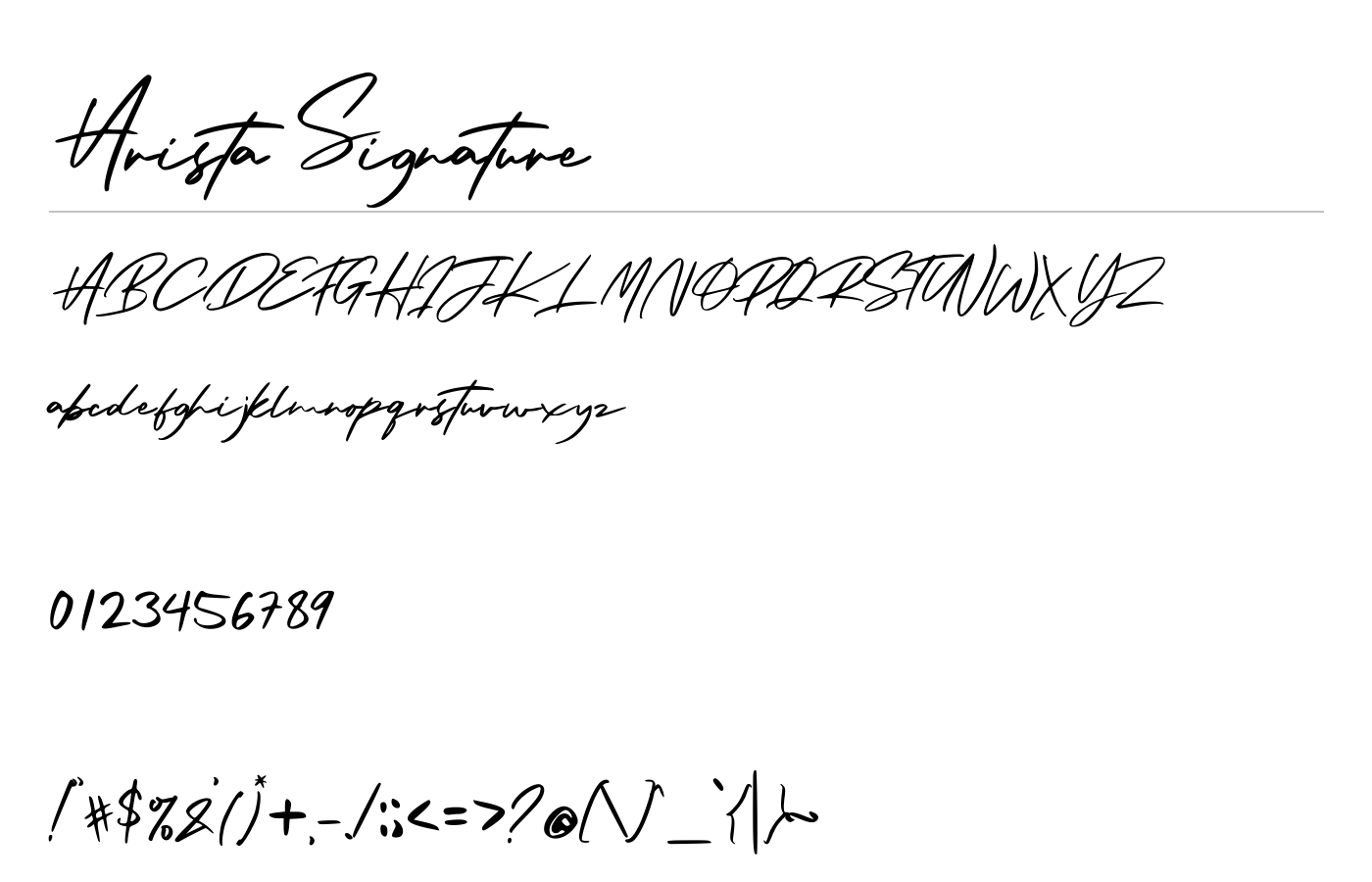
Arista Signature is a stylish, handwritten script font that feels personal and elegant with its flowing, natural strokes and consistent, medium weight. Its tall, slightly condensed letterforms and casual, connected style make it perfect for branding, invitations, and any design seeking a chic yet approachable aesthetic. This font works well where a sophisticated, modern signature look is desired, adding a touch of individuality and warmth.
Arista Signature Font
About Arista Signature Font